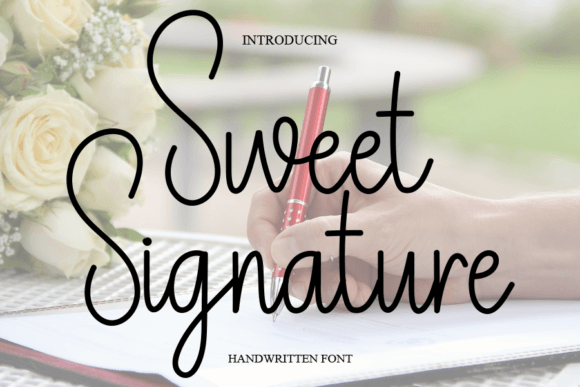
Unleash the magic of handwritten elegance with Sweet Signature Font, a captivating script font that dances across your digital canvas with a touch of whimsy and charm. Step into a world of creativity and let your imagination soar as you explore the limitless possibilities this font holds.
Indulge in the beauty of each meticulously crafted letter, designed to evoke the charm of a heartfelt handwritten note. Say goodbye to ordinary fonts and embrace the allure of individuality as you create stunning designs that leave a lasting impression.
With Sweet Signature Font, you'll embark on a journey of artistic exploration, transforming your creative visions into reality. Whether you're a seasoned designer or just starting your design adventure, this font will become your trusted companion, guiding you towards masterpieces that captivate and inspire.
Imagine your wedding invitations adorned with the graceful strokes of Sweet Signature Font, adding a touch of timeless elegance to your special day. Let your love story unfold in a symphony of handwritten beauty, leaving your guests in awe.
Dive into the realm of crafting, where Sweet Signature Font breathes life into your handmade creations. Personalize greeting cards with heartfelt messages, add a touch of whimsy to your scrapbook pages, or create enchanting wall art that reflects your unique style.
Step into the world of digital design and let Sweet Signature Font elevate your projects to new heights. Design eye-catching logos that exude sophistication, create captivating social media graphics that demand attention, or craft presentations that leave a lasting impact on your audience.
With Sweet Signature Font, you'll discover a font that sparks joy and ignites your creativity. Download it today and embark on a journey of self-expression, leaving a trail of elegance and charm wherever your designs lead you.